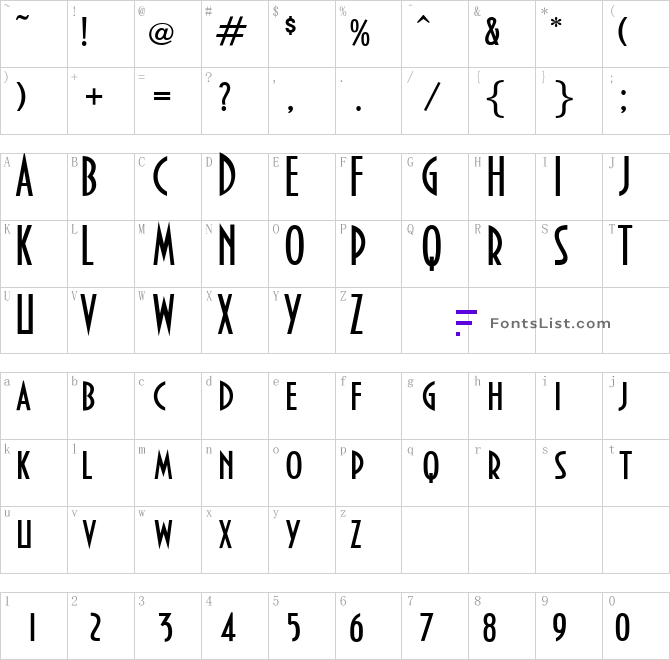
- Font Name:Bankir-Retro
Bankir-Retro.ttf is a very beautiful artistic font, Bankir-Retro.ttf is widely used in the design and printing of various books and pictures,Bankir-Retro.ttf has a strong visual impact,Bankir-Retro.ttf is a commonly used font in newspapers, magazines and books, and is used in posters, e-commerce Poster design, store design, logo design, font design and other fields.Bankir-Retro.